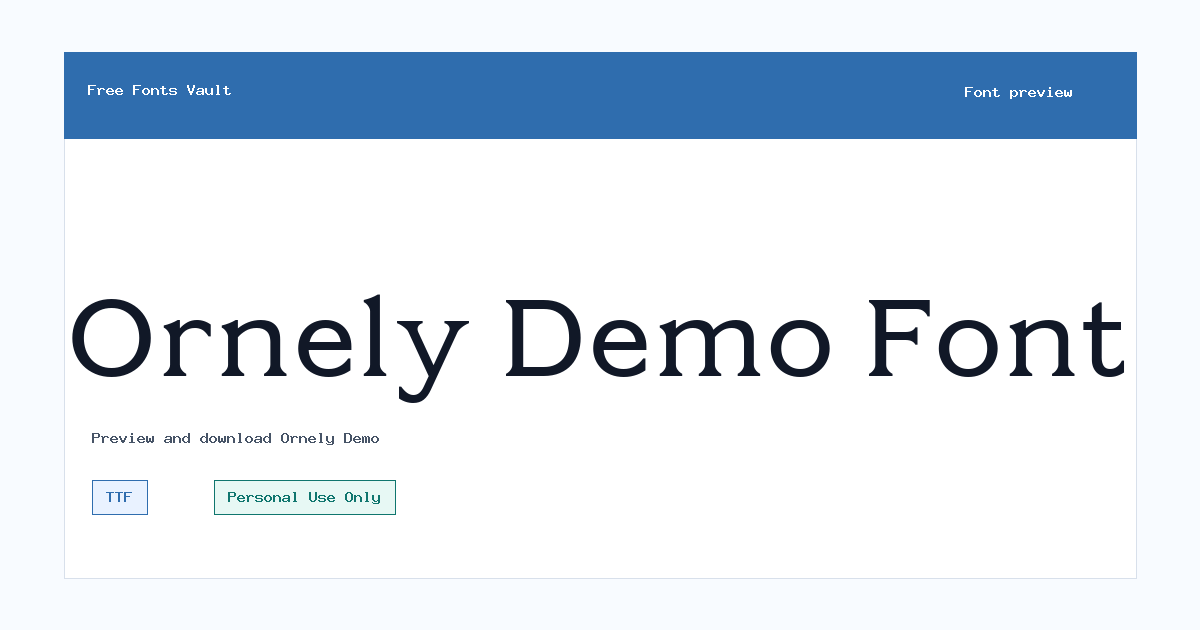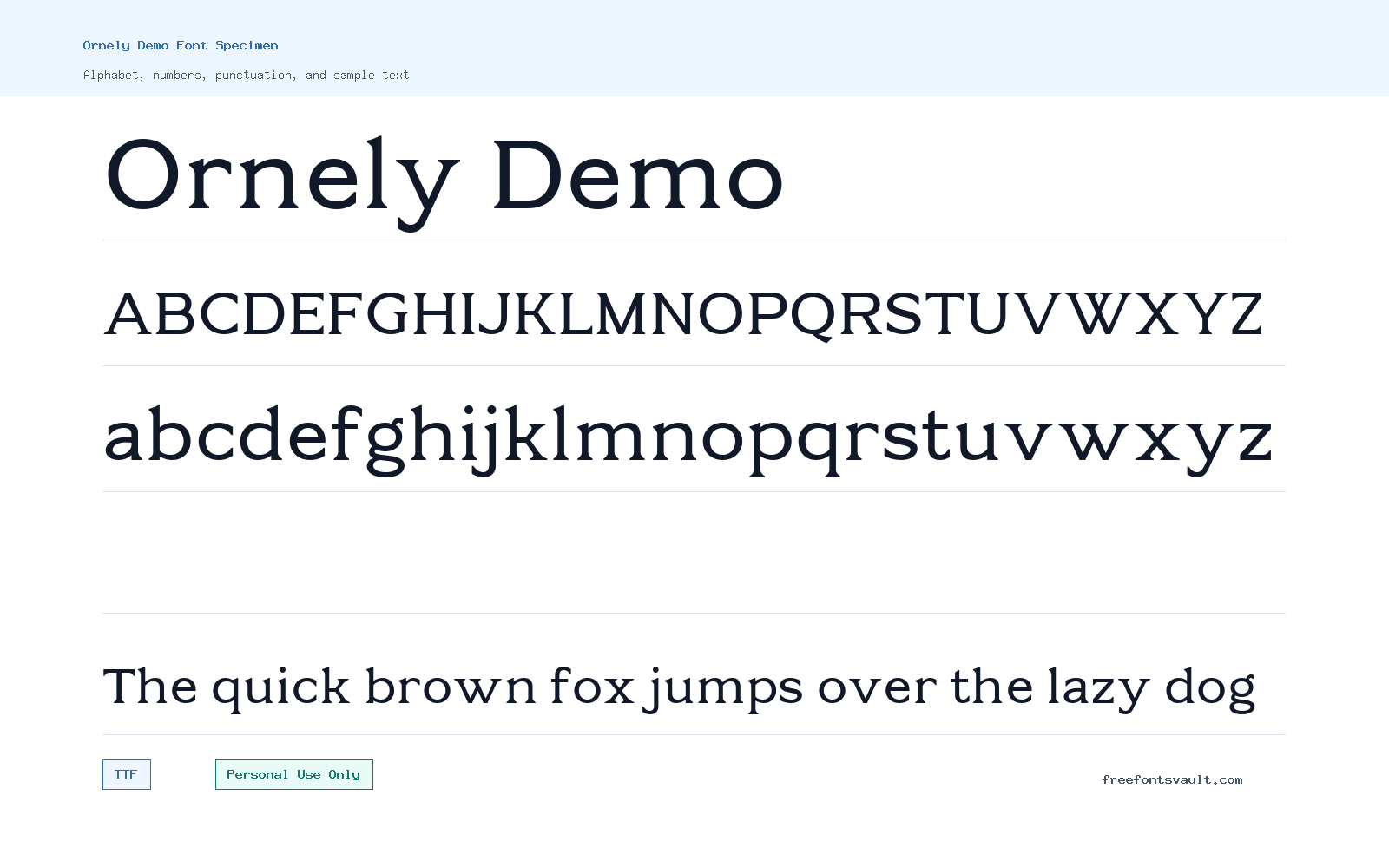
Ornely Demo
Ornely Demo is a display font for projects that need a more polished, decorative text style without relying on a plain everyday typeface. It is best tested in short words, names, titles, and presentation-style layouts where the letter shapes can stand out.
Ornely Demo is listed as a font by Ragamkata Studio and comes in a regular TTF file. The name and license wording point to a serif-style design, so it makes the most sense for visitors looking for a refined title font rather than a long-reading body face. Use the preview box to test the exact words you plan to use, especially if the design will include brand names, initials, product titles, wedding wording, or poster headlines. Display fonts often look strongest when they have room to breathe, so try larger sizes, generous spacing, and simple surrounding typography before deciding how to use it.
For logo work, Ornely Demo can be useful at the concept or mockup stage when you want a graceful wordmark direction. Keep the wording short and check every letter combination carefully. Some decorative or serif display fonts can feel elegant in one word but crowded in another, especially with repeated letters, tight punctuation, or all-caps text. If you are preparing a client project, commercial brand, packaging design, merchandise, advertising graphic, or anything that may be sold or promoted publicly, treat the license limit as the most important detail and confirm permission before using the font beyond personal tests.
In poster and social-media layouts, Ornely Demo is likely to work best as the main headline paired with a quieter supporting font. Let Ornely carry the title, then use a clean sans serif or a simple text serif for dates, prices, captions, and longer notes. This keeps the page readable and prevents the design from feeling overly decorated. For web mockups, try it in hero headings, editorial banners, portfolio concepts, mood boards, and landing-page title sections, but avoid using it for paragraphs, navigation menus, form labels, or any area where quick scanning matters.
- Display-oriented serif character, suited to short text where the font can be shown at a larger size
- Useful for previewing names, titles, poster headlines, invitation text, and logo concepts
- Works best when paired with simpler supporting type for readable captions and layout details
- Logo concepts and wordmark drafts
- Poster headlines and event title graphics
- Wedding, boutique, beauty, fashion, or editorial-style mockups
- Social-media quote cards and announcement designs
- Website hero headings and portfolio presentation concepts
- Personal invitations, mood boards, and non-commercial design practice
What is Ornely Demo best used for?
It is best suited to short display text such as logos, headings, posters, invitations, social graphics, and web mockup hero titles.
Is Ornely Demo good for body text?
It is better for short, prominent text. For paragraphs, captions, menus, and small text, pair it with a simpler font that is easier to read.